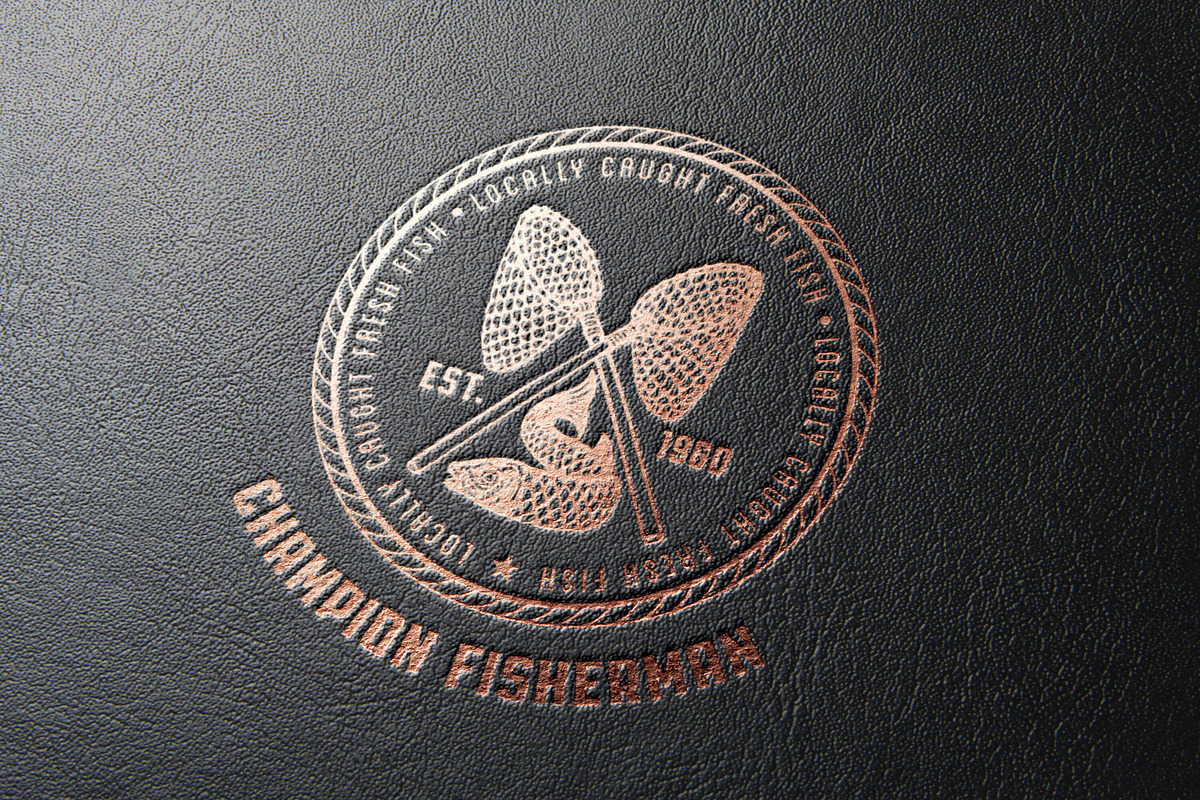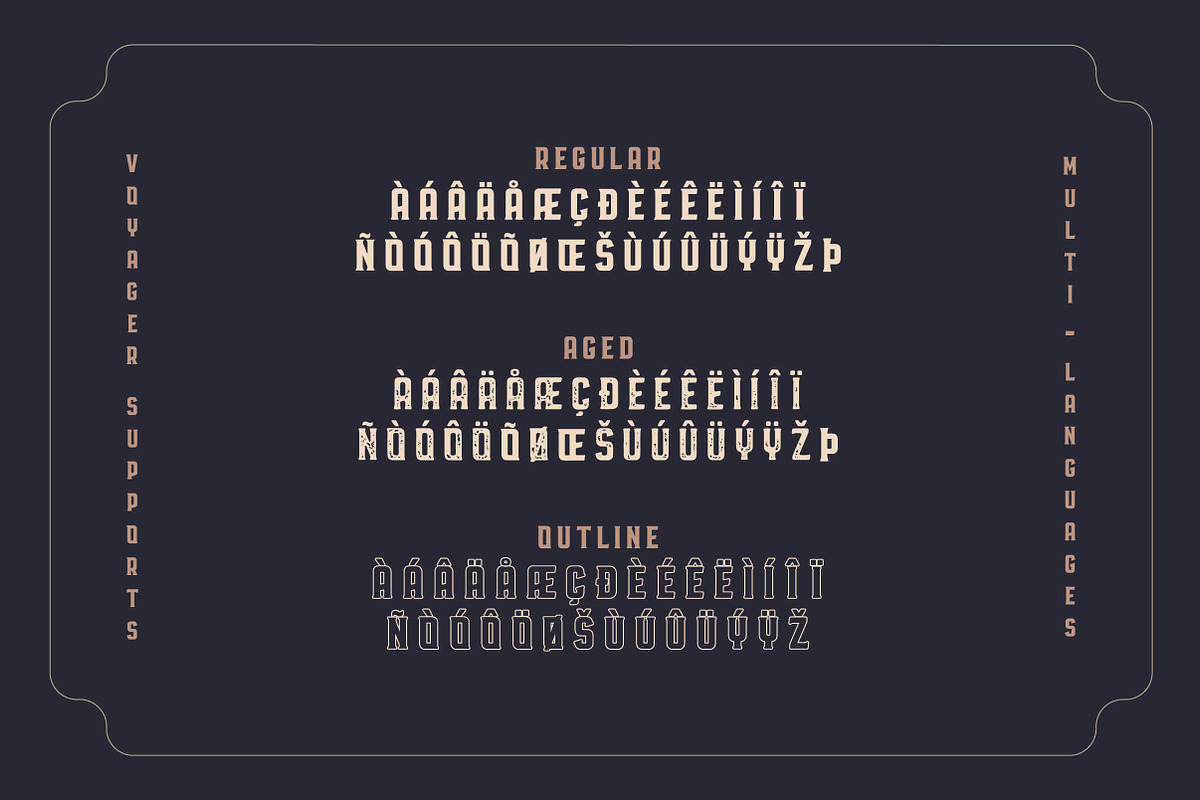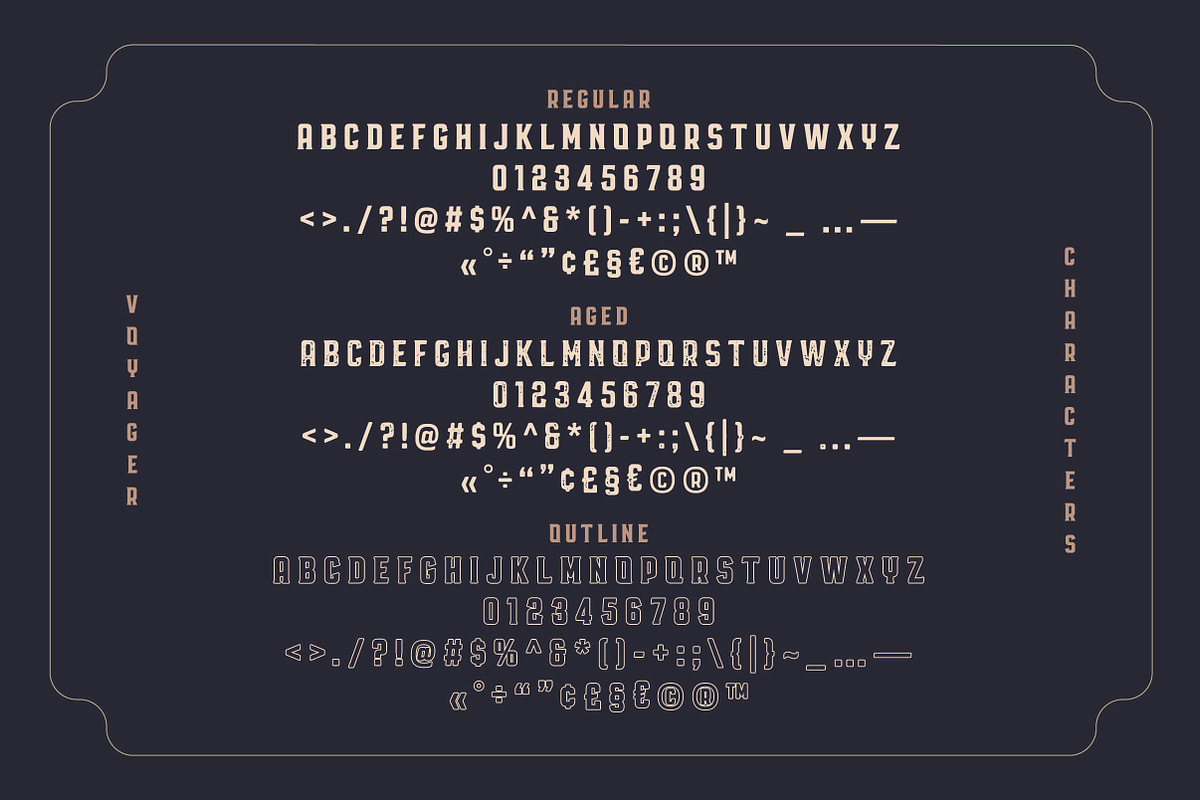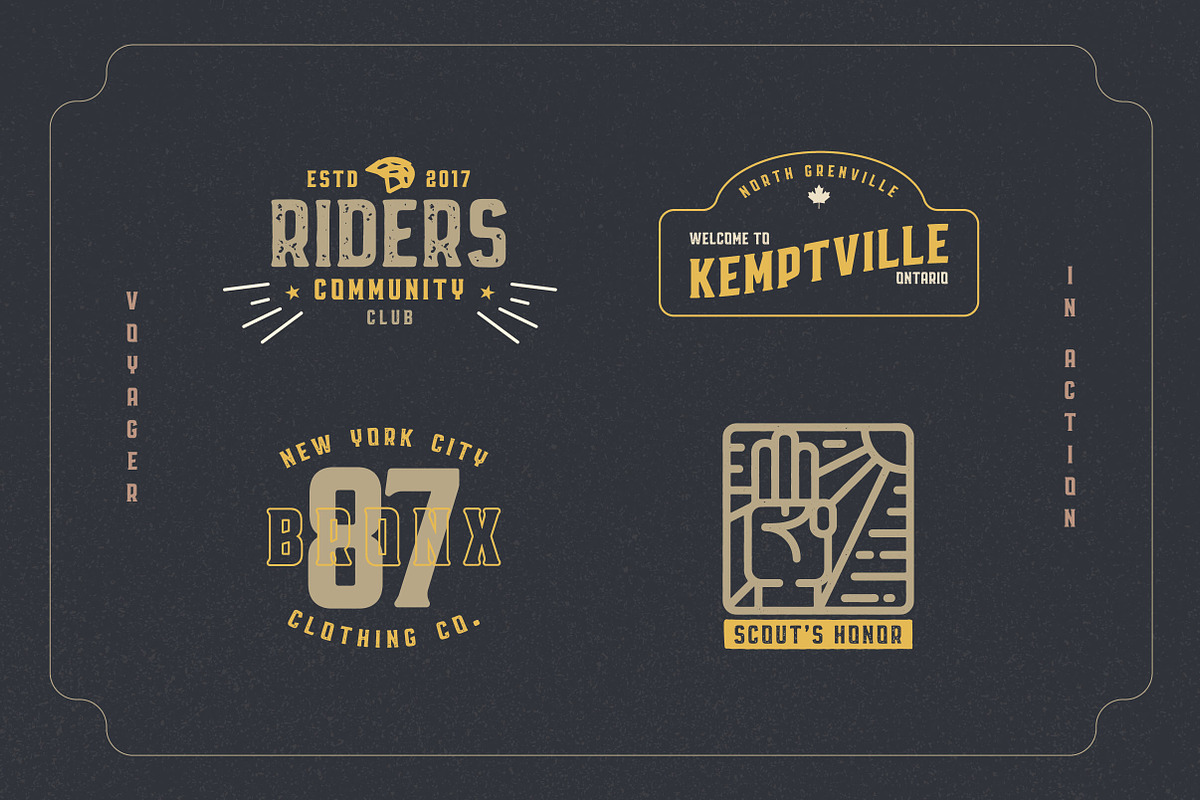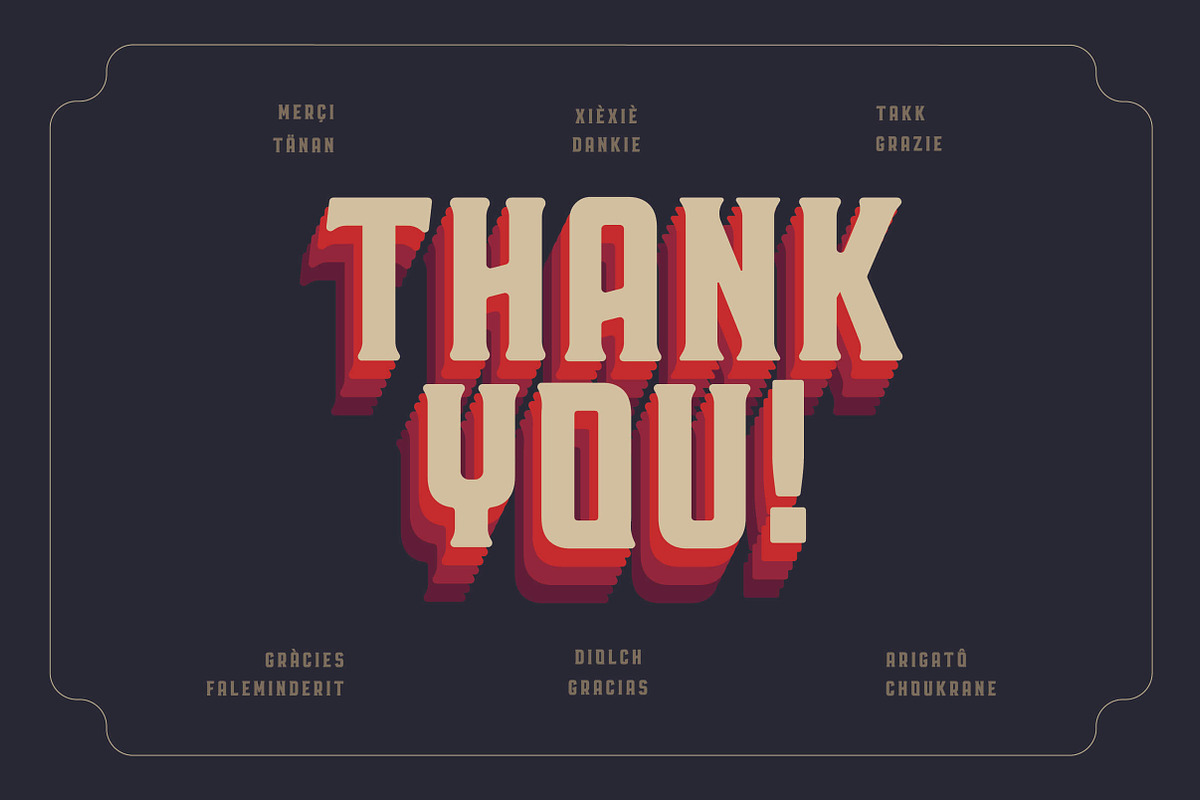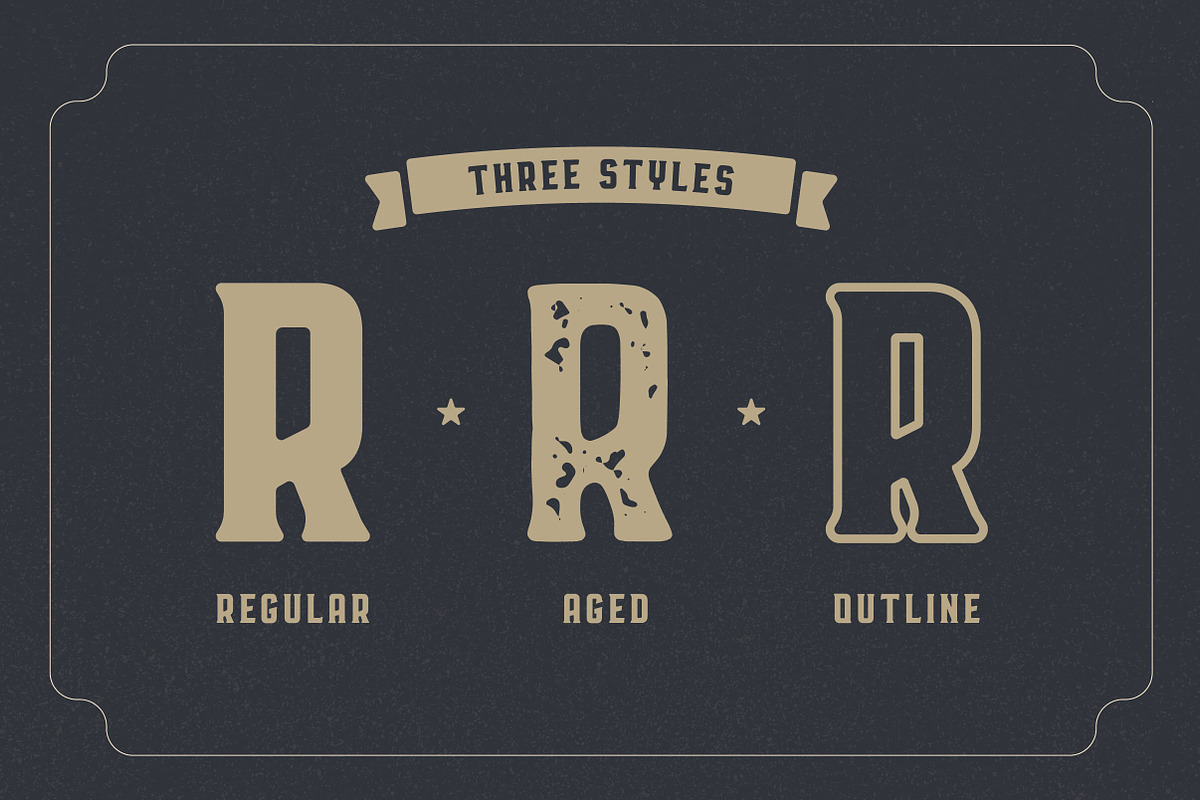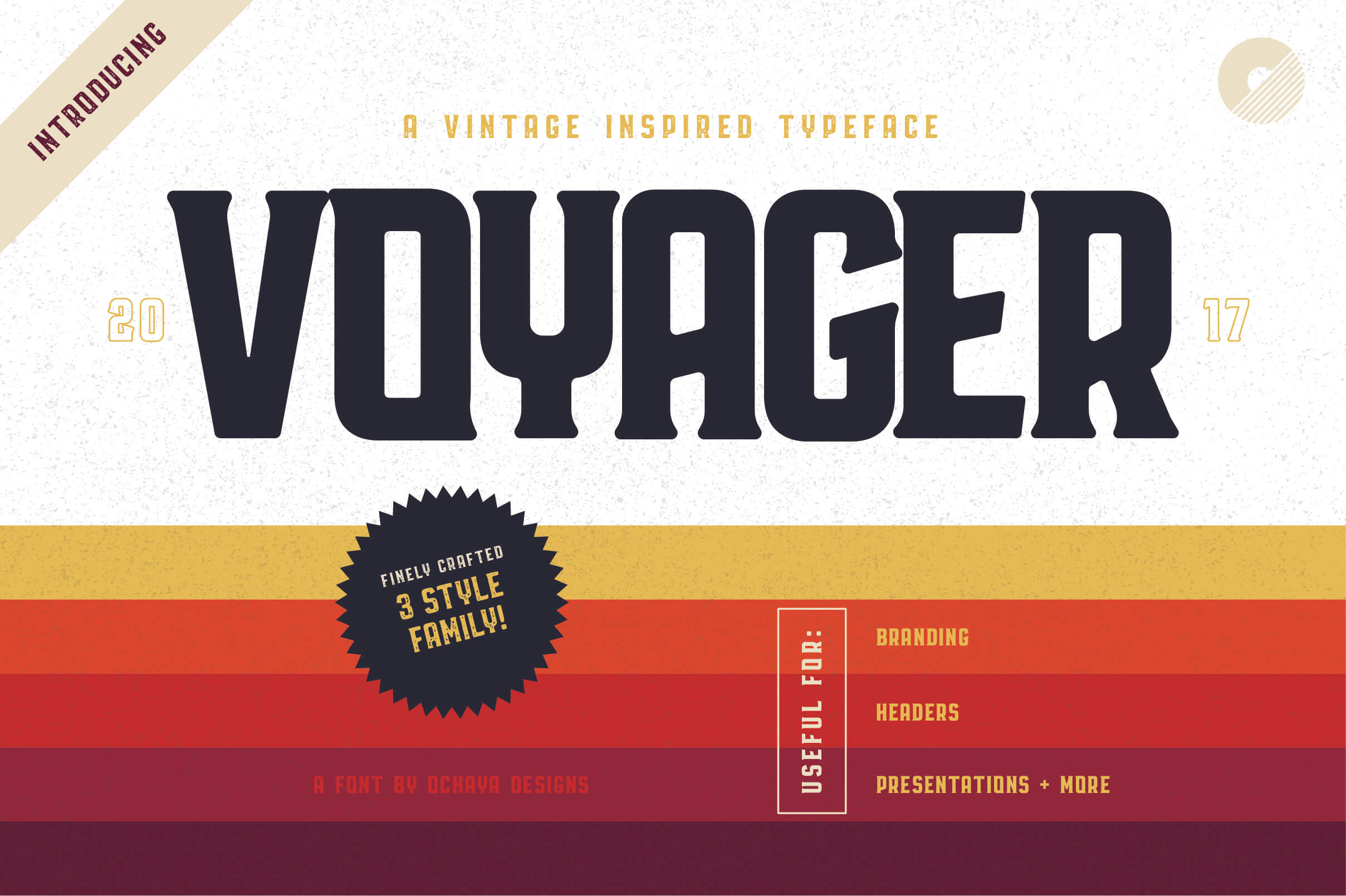
Voyager Typeface
V O Y A G E R
A vintage inspired serif typeface. Voyager comes as a complete of family three and is best used for branding, print design, title headings & so much more. Don't miss out!
A well crafted serif typeface.
- Uppercase Characters
- Multilingual Characters